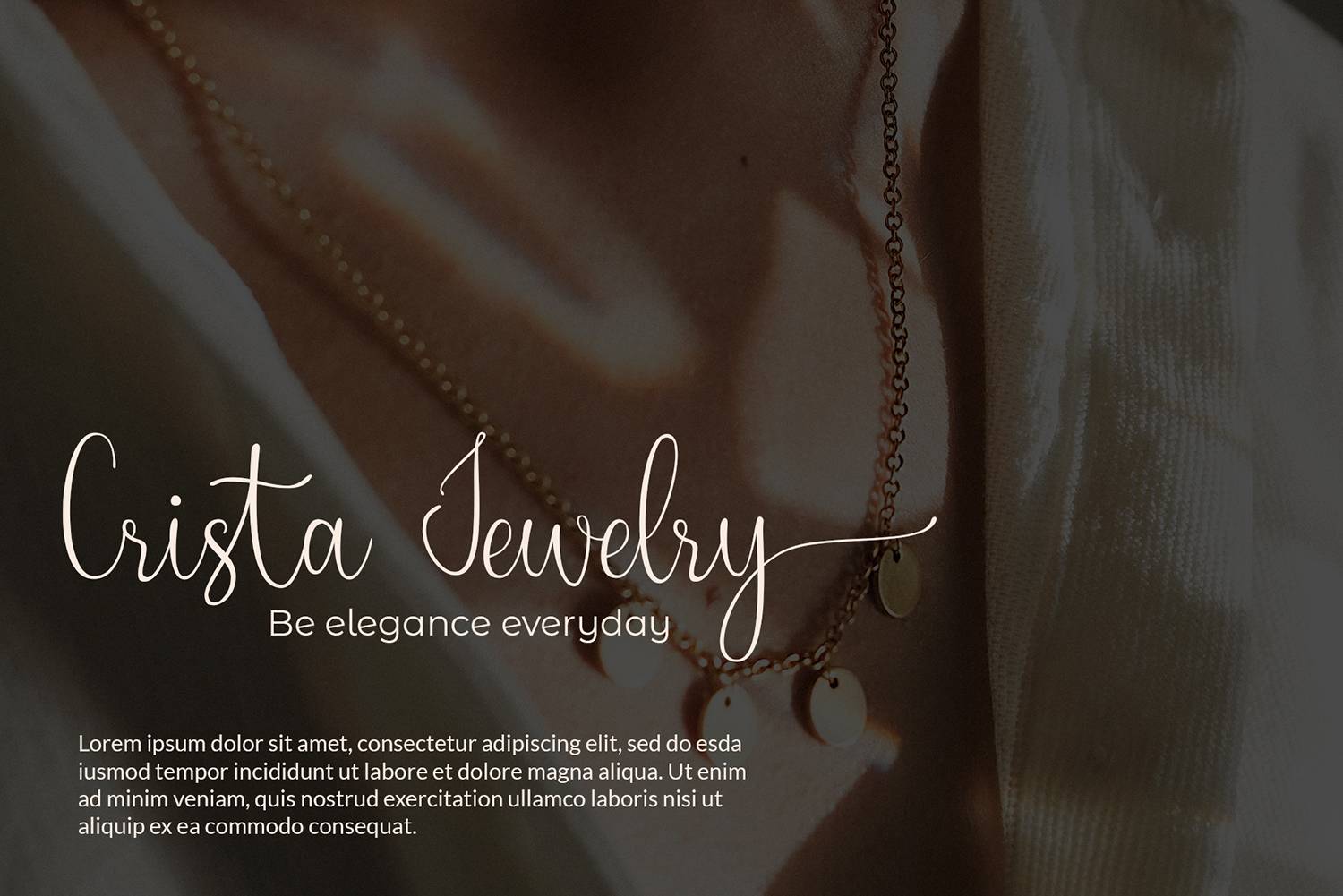
Cahaya Surya is a delicate, handwritten script font characterized by its tall, narrow letterforms and elegant, flowing strokes. Its light weight and whimsical curves give it a charming and personal feel, making it ideal for invitations, branding, and creative projects that seek a graceful and intimate touch. This font works best in settings where a soft, artistic style enhances the mood, such as fashion, lifestyle, and boutique designs.
Cahaya Surya Font
About Cahaya Surya Font